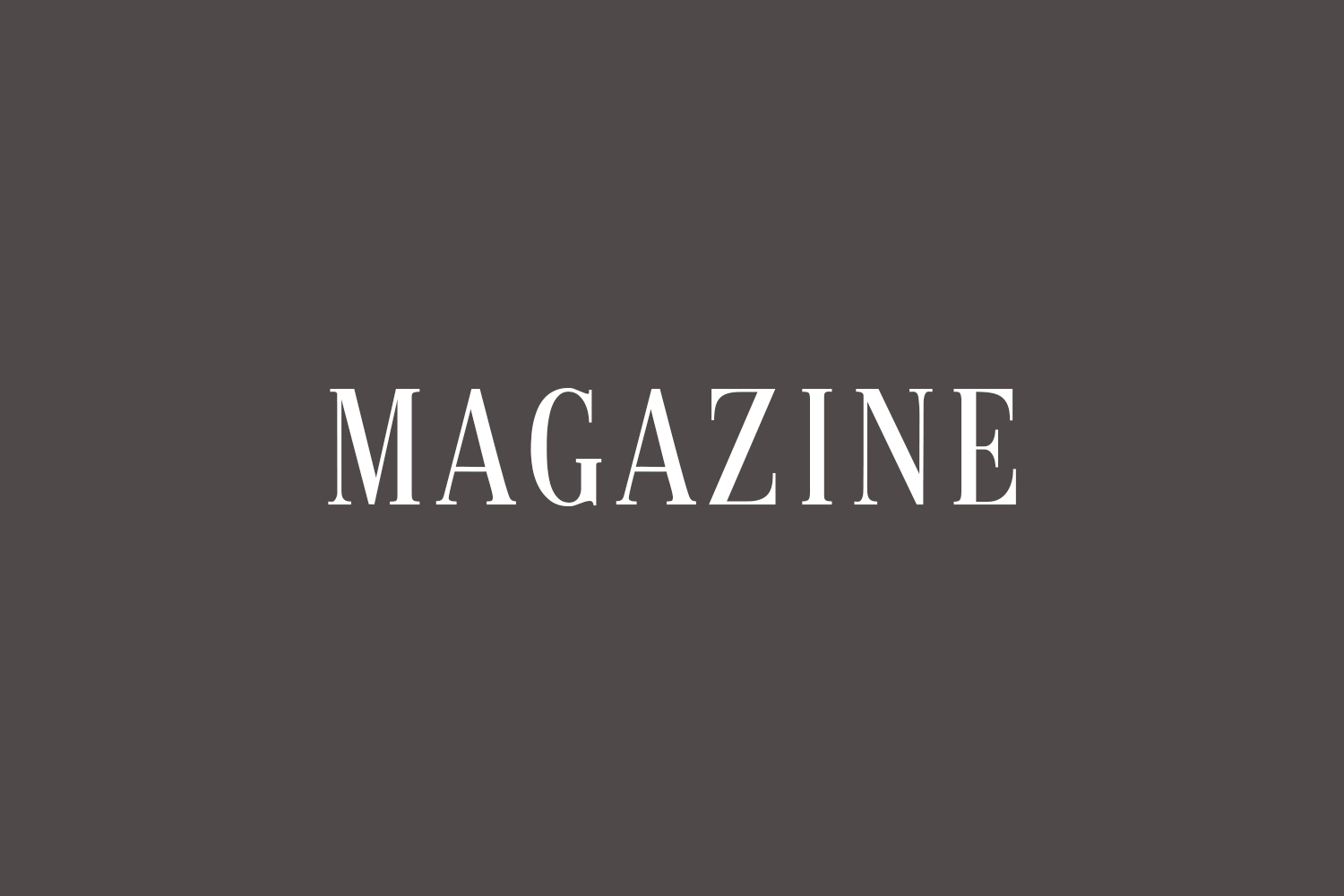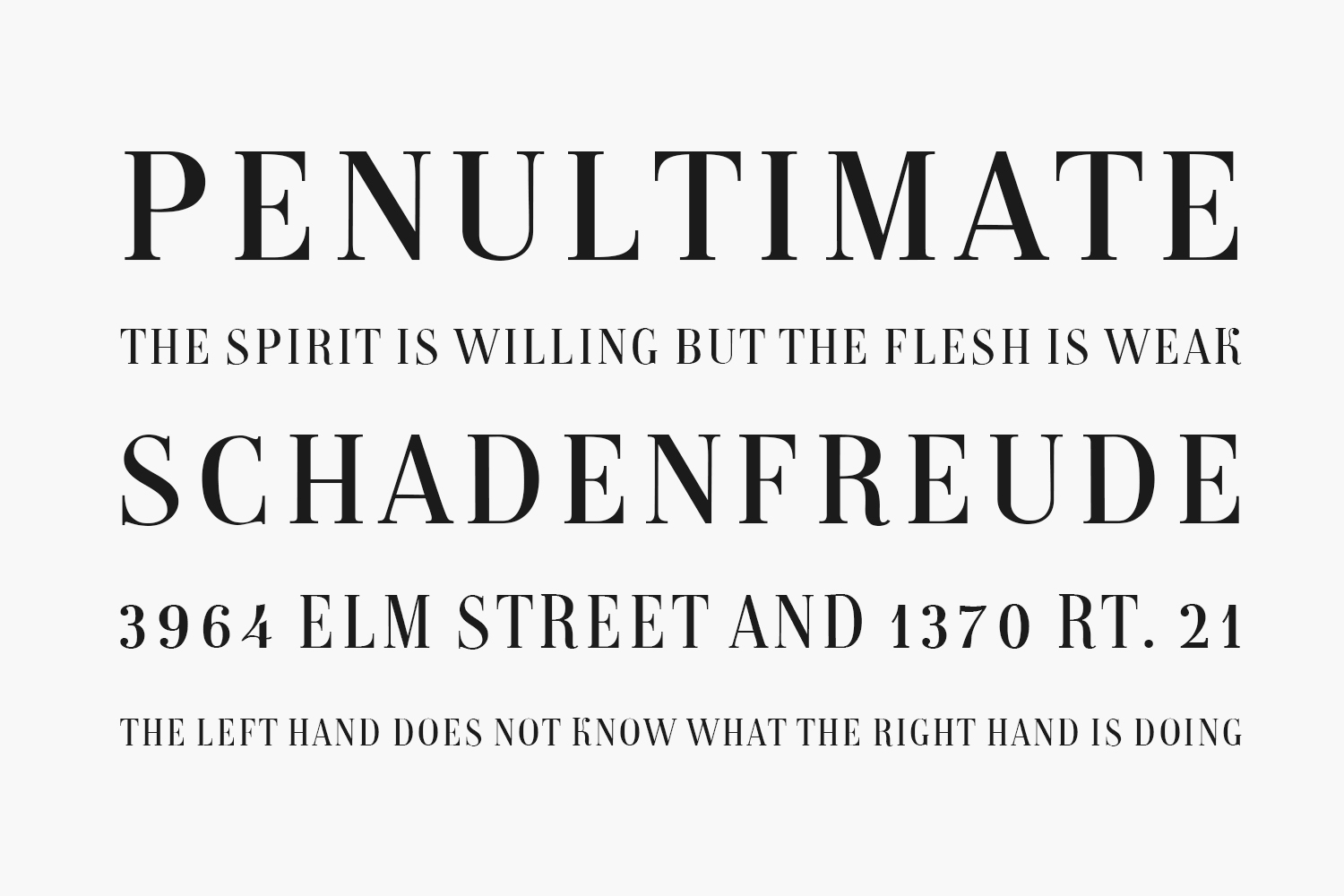
Magazine Free Font Family was designed by Vladimir Nikolic and is free for personal use only. Please purchase the full version for commercial use. Magazine Free Font Family is a stylish serif font, carefully handcrafted to become a true favorite. This font is the perfect fit for all of your logos, branding, social media, and crafty DIY projects.
Designed by Vladimir Nikolic